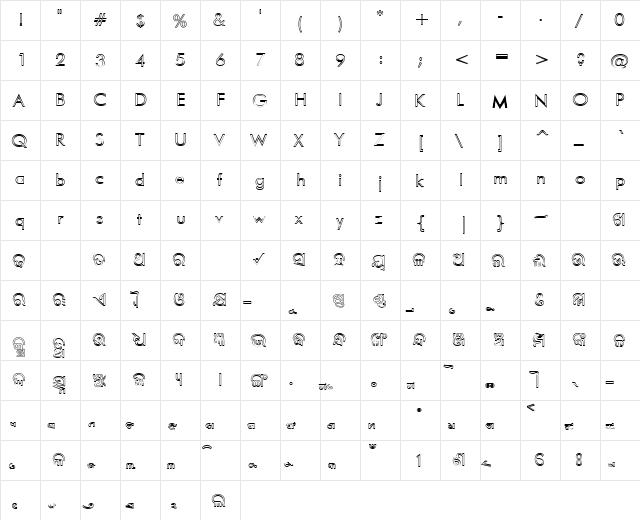
AkrutiOfficeBudha Outline Font Preview
AkrutiOfficeBudha Outline
AkrutiOfficeBudha Outline Font Details
| Style | Outline |
Design Context for AkrutiOfficeBudha Typeface
AkrutiOfficeBudha is built around its visual character rather than neutral utility — its distinctive forms are designed to make an impression at display sizes.
Font Pairing: Pair with a clean neutral sans-serif for body copy to let AkrutiOfficeBudha's character lead without overwhelming the composition.
Pro Tip: Use AkrutiOfficeBudha exclusively at display sizes — it was designed to be seen, not read at length. Let a neutral companion handle body copy.